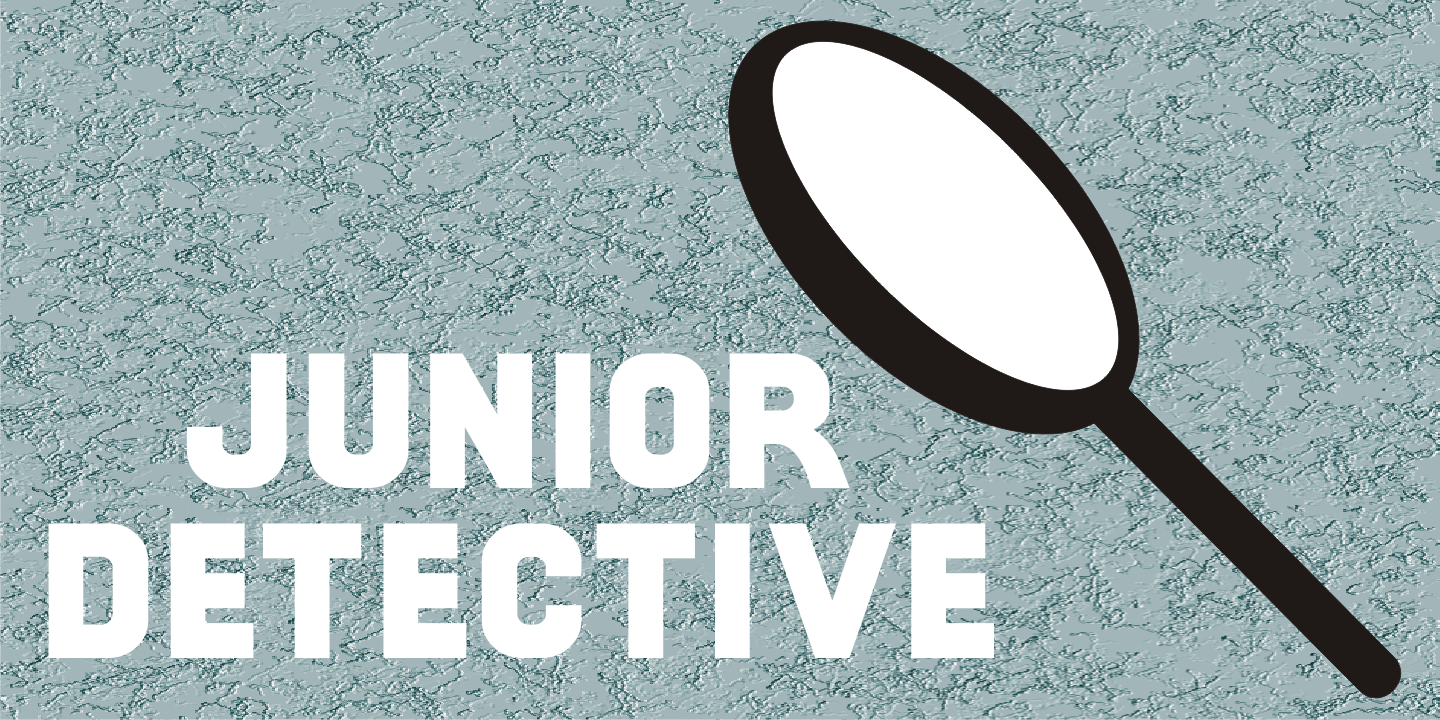
The Junior Detective JNL Font is perfect for mystery book covers, detective story illustrations, crime novel typography, investigation-themed games, mystery party invitations, escape room branding, detective agency logos, film noir posters, and mystery theater productions.
What makes the Junior Detective JNL Font so exciting is its intriguing character that instantly evokes the thrilling world of mystery and investigation. This captivating typeface combines playful accessibility with serious detective aesthetics, creating the perfect balance for projects that need to be both engaging and authoritative. The font's distinctive personality captures the excitement of solving puzzles and uncovering secrets while maintaining the professional credibility that mystery entertainment requires.
The Junior Detective JNL Font family includes Regular weight featuring complete uppercase and lowercase character sets, comprehensive numerical collections, essential punctuation marks, and mystery-themed symbols that maintain the investigative aesthetic throughout your detective-themed design projects.
Mystery writers and entertainment professionals consistently choose Junior Detective JNL Font Free Download for projects that require authentic detective appeal and engaging presentation. This exceptional typeface excels in environments where creating suspense and curiosity is essential for capturing audience attention. The font's mysterious character helps establish the intrigue and excitement that readers and viewers seek in detective entertainment.
The distinctive features of Junior Detective JNL Font reflect the classic era of detective fiction when mystery stories captivated audiences with clever plots and memorable characters. Each character demonstrates the careful attention to detail that characterizes both good detective work and quality typography. The font's proportions and spacing create perfect balance between readability and atmospheric mystery that modern detective entertainment requires.
Contemporary mystery creators appreciate how Junior Detective JNL Font communicates intelligence and investigative prowess. Whether designing covers for detective novels, creating promotional materials for mystery dinner theaters, or developing branding for escape room businesses, this font delivers the authentic character that distinguishes quality mystery entertainment from generic thriller content. The typeface works exceptionally well for projects emphasizing clever puzzles and intellectual challenges.
The versatility of Junior Detective JNL Font extends across multiple mystery entertainment applications and educational materials. Mystery game designers utilize its intriguing character for board game packaging and rule books. Detective training programs choose it to communicate the serious yet accessible nature of investigative education. Museum exhibits about crime history rely on its engaging appearance to attract visitors to educational displays.
Digital mystery platforms benefit from Junior Detective JNL Font's optimized performance across various devices and screen resolutions. The font maintains its mysterious character whether displayed on mystery websites, mobile detective games, or digital mystery magazines. This technical reliability ensures consistent brand presentation across all mystery entertainment channels.
The psychological impact of Junior Detective JNL Font resonates with audiences who enjoy intellectual challenges and problem-solving entertainment. The typeface serves as a visual invitation to engage with complex mysteries and clever puzzles that help mystery businesses build dedicated fan communities. This connection to curiosity and discovery makes it invaluable for establishing successful mystery entertainment brands.
Mystery enthusiasts and detective fiction scholars recognize Junior Detective JNL Font as an authentic representation of detective typography traditions. The font preserves the important cultural heritage of mystery entertainment while making engaging design accessible to contemporary creators who want to honor classic detective storytelling in their modern mystery projects.